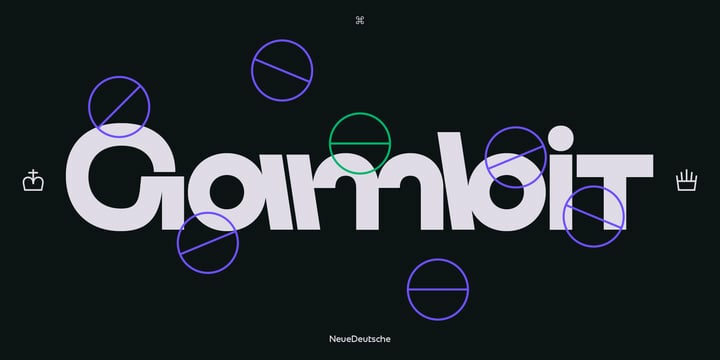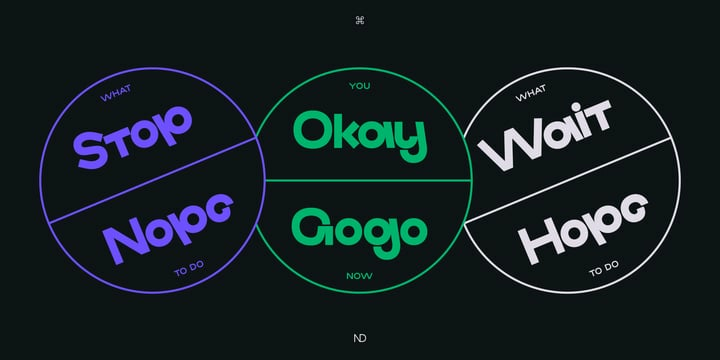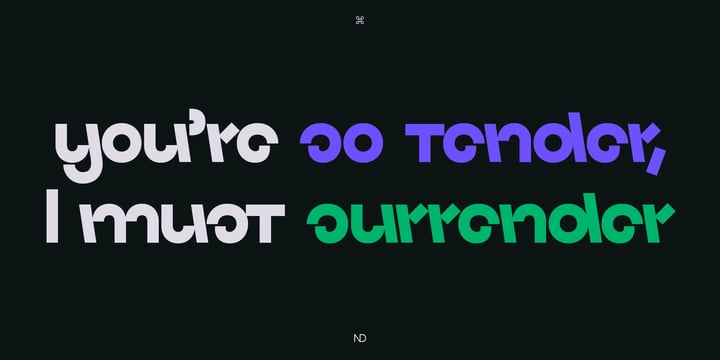
ND Gambit Complete Font Family
ND Gambit Complete Font FamilyND Gambit is a quirky sans serif with an unusual variation between back slant and upright glyph by glyph. It comes in 9 weights. Watch out, the regular weight is free of charge, so you can use it to your heart’s content. Each weight includes extended language support (Latin + Cyrillic + Greek), arrows, fractions, old-style figures, ligatures, and more. It is perfectly suited for graphic design and will work for web, corporate as well as for editorial design.